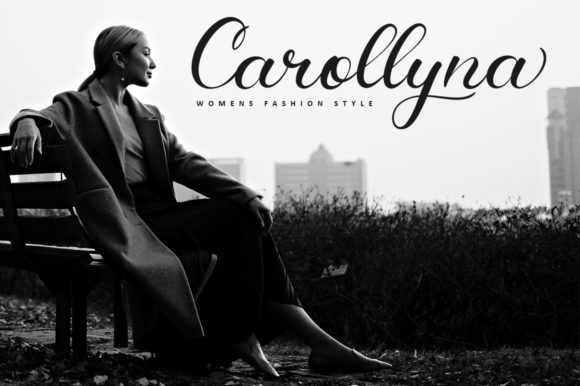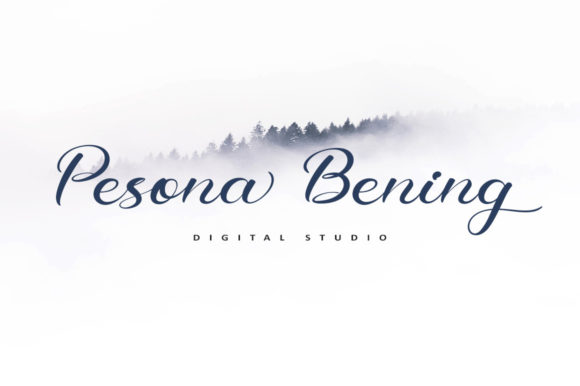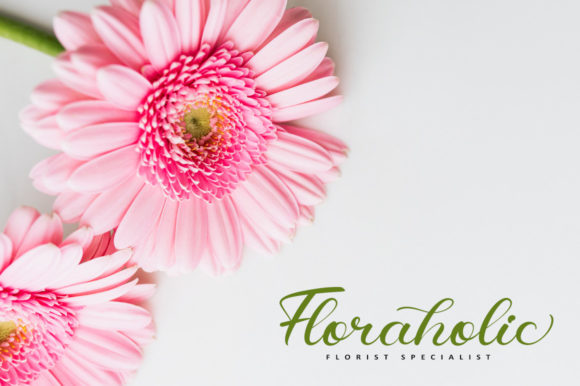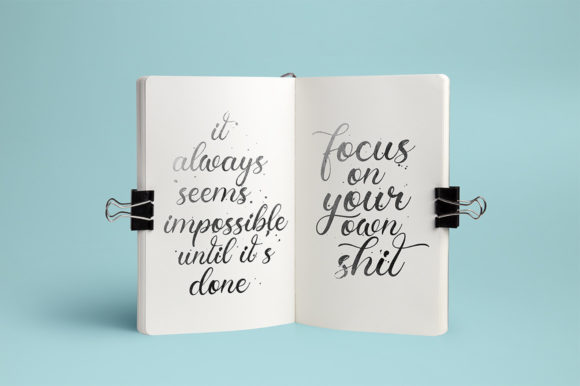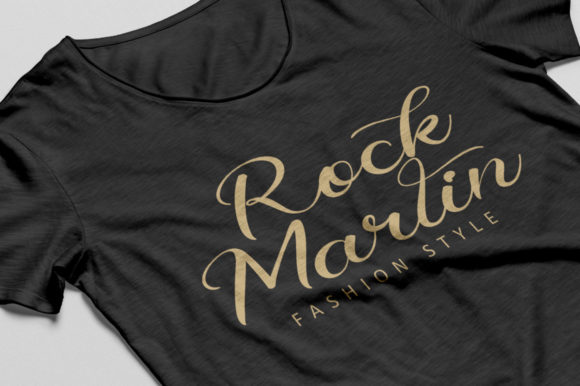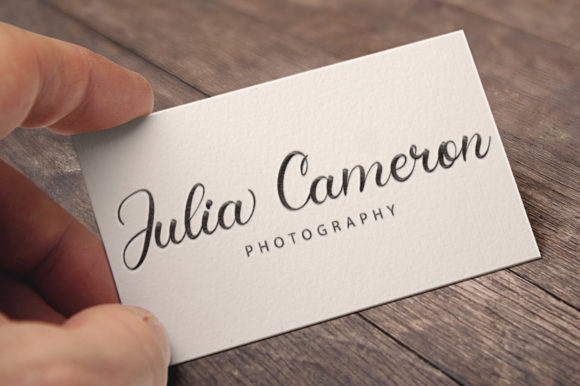
Introduction to Jullyana Font
Do you remember that moment when you finally nailed the perfect typography for your project? The fonts seemed to dance on the page, and your design came alive. For many designers, this moment is a result of endless hours spent searching for the perfect font. But what if we told you that we’ve found one that can elevate your designs to the next level?
Meet the Jullyana Font, a stunning modern script font designed specifically for packaging products, business cards, invitation cards, logotypes, and other creative projects that require high-quality typography. With its beautiful graphics and well-crafted characters, this font is a valuable resource for designers looking to add a personal touch to their work.
Whether you’re working on a free download project or a paid design, the Jullyana Font is a great addition to your design toolkit. Its transparent background and versatility make it a perfect choice for almost any creative project.
Key Features of Jullyana Font
- Unique, elegant script font with a transparent background
- Perfect for adding a touch of sophistication to various design projects
Honest Review: Jullyana Font
As a designer, I’m always on the lookout for high quality design resources to elevate my creative projects. Recently, I came across the Jullyana Font, and I’m excited to share my honest review.
What works well: ✨ The Jullyana Font is a beautifully crafted script font with a unique and elegant feel. It’s perfect for titles, headings, and any other text where you want to add a touch of sophistication. I also appreciate the transparent background option, which makes it easy to use on any background.
Overall impression: I would definitely recommend the Jullyana Font for design projects that require a high level of sophistication and elegance. While it has some limitations, it’s a great free download that can add a lot of value to your designs.
Jullyana Font is ideal for creative projects that require a unique and elegant touch. Some common use cases include wedding invitations, social media graphics, and branding materials. To get the most out of Jullyana Font, experiment with different font sizes, styles, and combinations to create a visually appealing design.
Q: Does the Jullyana Font include a transparent background?
Yes, the Jullyana Font features a transparent background, making it ideal for use on various backgrounds and design elements. This design feature adds flexibility to your creative project and allows for seamless integration with other design elements.